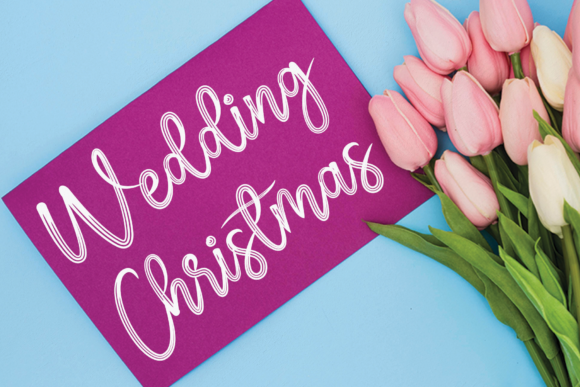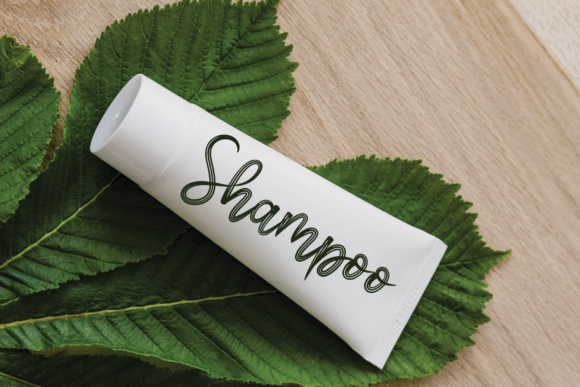
About Christmas New Year Font
Christmas New Year is an elegant and dainty handwritten font, graced with sweet and delicate swashes that add a touch of sophistication and charm to your designs. Its versatile style makes it suitable for a wide range of projects, especially those that require a handwritten touch. Here are some creative ways to use Christmas New Year in your designs:
1. Wedding Invitations: Create exquisite wedding invitations with Christmas New Year, adding a romantic and personalized touch to the special day.
2. Thank You Cards: Design beautiful thank you cards for your loved ones, expressing gratitude in a heartfelt and elegant manner.
3. Quotes and Greeting Cards: Use Christmas New Year to craft lovely quote graphics or greeting cards for various occasions and celebrations.
4. Logos and Business Cards: Enhance the branding of your business with a sophisticated and handwritten logo or design elegant business cards that leave a lasting impression.
5. Social Media Graphics: Incorporate Christmas New Year into your social media posts and stories to add a touch of elegance and allure.
6. Art Prints: Create artistic prints featuring inspiring quotes or holiday-themed messages using Christmas New Year.
7. Gift Tags and Labels: Add a refined touch to your gifts with personalized gift tags and labels featuring Christmas New Year.
8. Personal Stationery: Design personalized stationery sets with this delicate font, making your letters and notes all the more special.
9. Blog and Website Graphics: Use Christmas New Year to add a unique and elegant touch to your blog headers, website graphics, and other online elements.
10. Party Invitations: Design sophisticated party invitations for New Year’s Eve celebrations or other festive gatherings with Christmas New Year.
In summary, Christmas New Year is an elegant and dainty handwritten font that enhances the beauty and charm of your designs. From wedding invitations to social media graphics and business branding, this font adds a touch of sophistication to any project that requires a handwritten, delicate touch. Embrace the beauty of Christmas New Year and let it elevate your creative endeavors with its elegance and style.